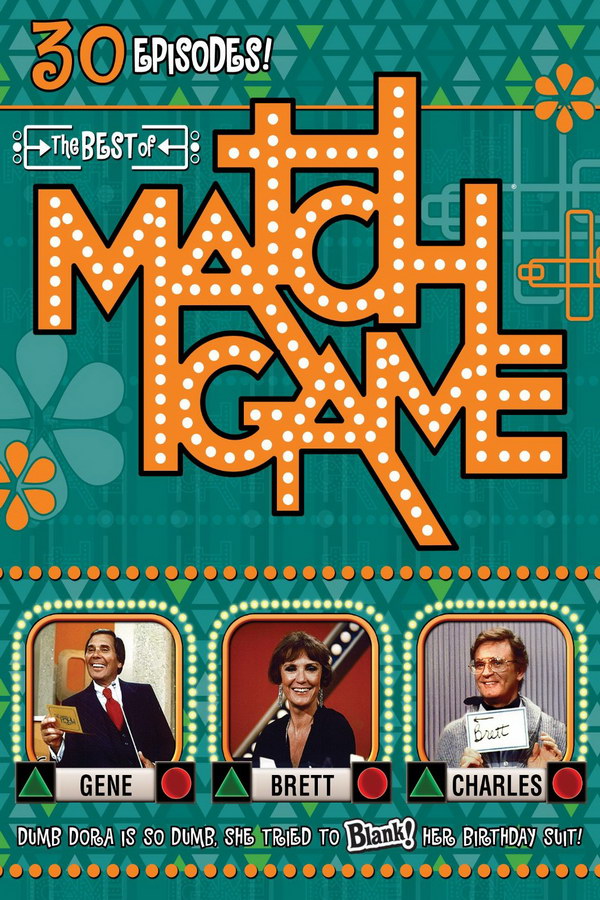
Match Game Font
Fonts in UseMatch Game is a classic American game show that first aired in 1962 and was revived several times throughout the years. The show features a panel of celebrity guests who attempt to match answers with contestants for a chance to win cash prizes.
The Match Game title employs a font that bears resemblance to Stentiga, a geometric headline typeface created by Ray Larabie. You can download this font for free from the Fonts Used Section.